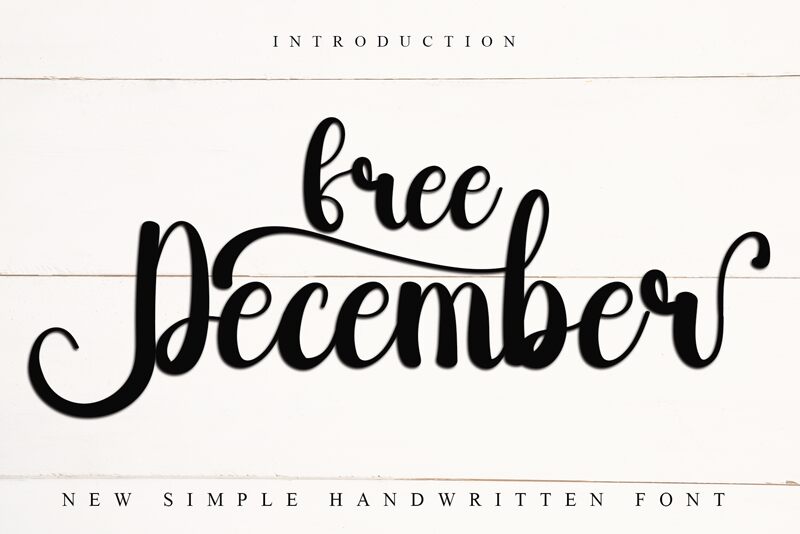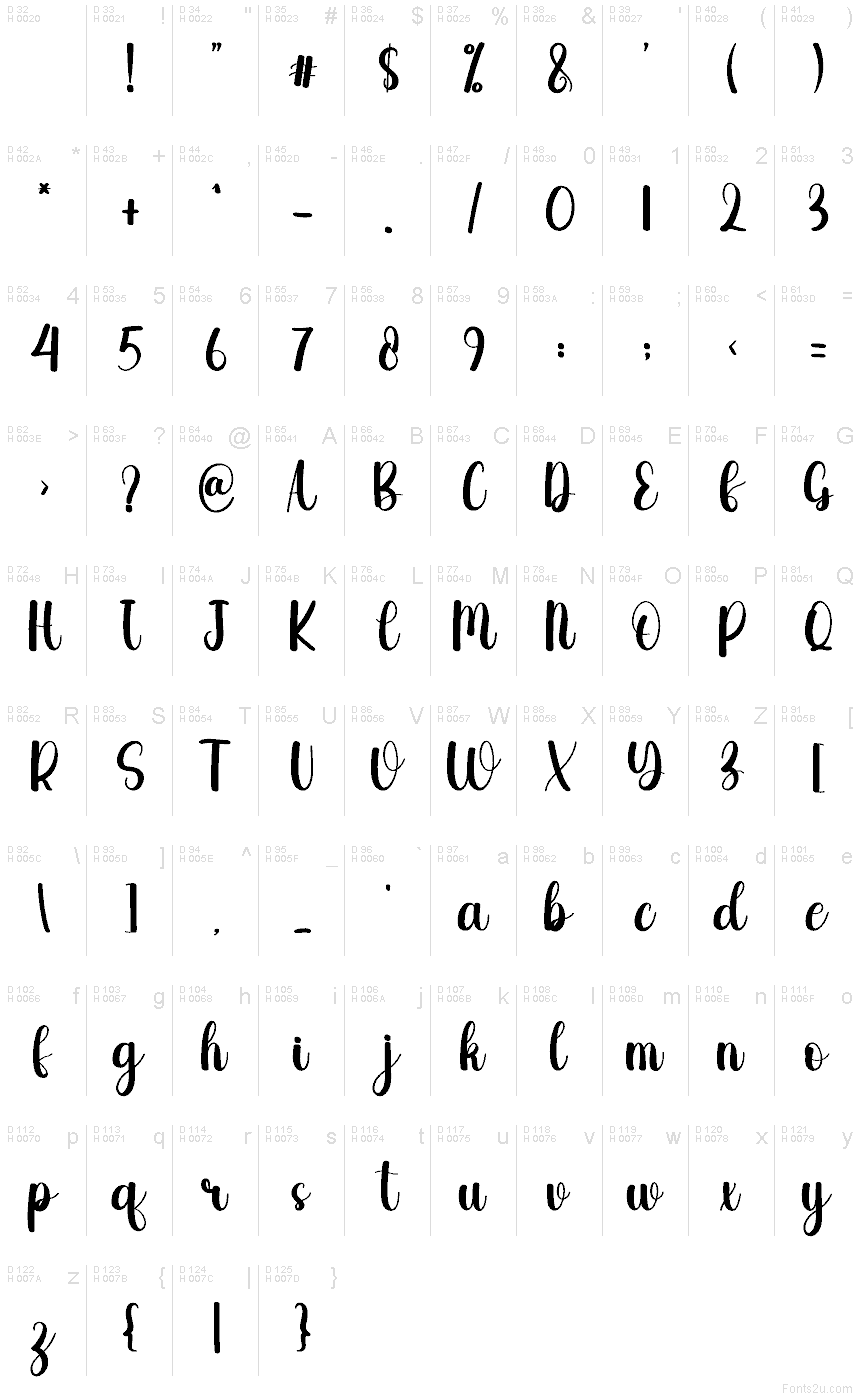
Free December
Free December font by Creatype Designer is a free brush script typeface that feels like it’s been painted in one smooth, confident motion. Its looping forms, inky thickness, and gentle slant give every word a handwritten warmth, while the clean rhythm keeps it readable and polished rather than messy. There’s a subtle calligraphic flair in the curves, so it feels both a bit festive and still refined enough for everyday branding.
Using Free December, you can give holiday cards, wedding invitations, boutique logos, product packaging, social media quotes, headers, and gift tags a soft, crafted presence that still looks professional. This free font works beautifully when set large so its strokes can breathe; pair it with a simple geometric sans serif for body text to keep layouts balanced and easy on the eye.